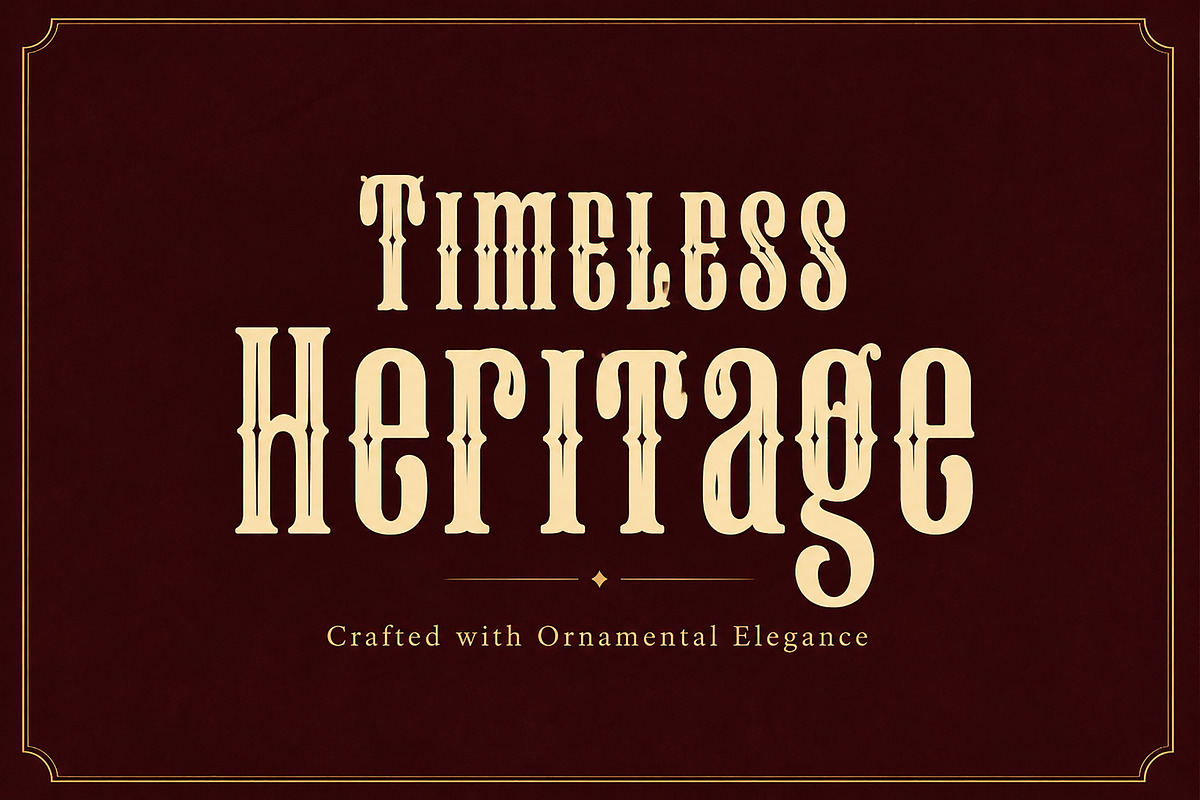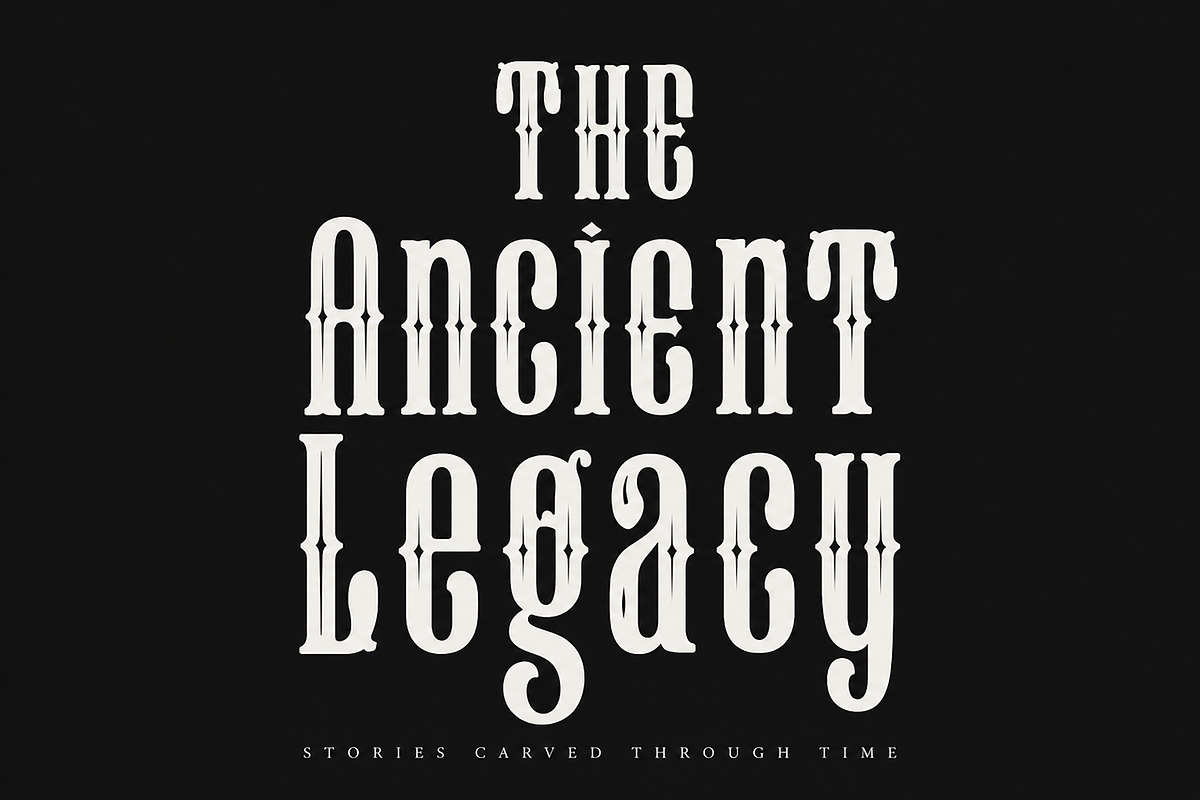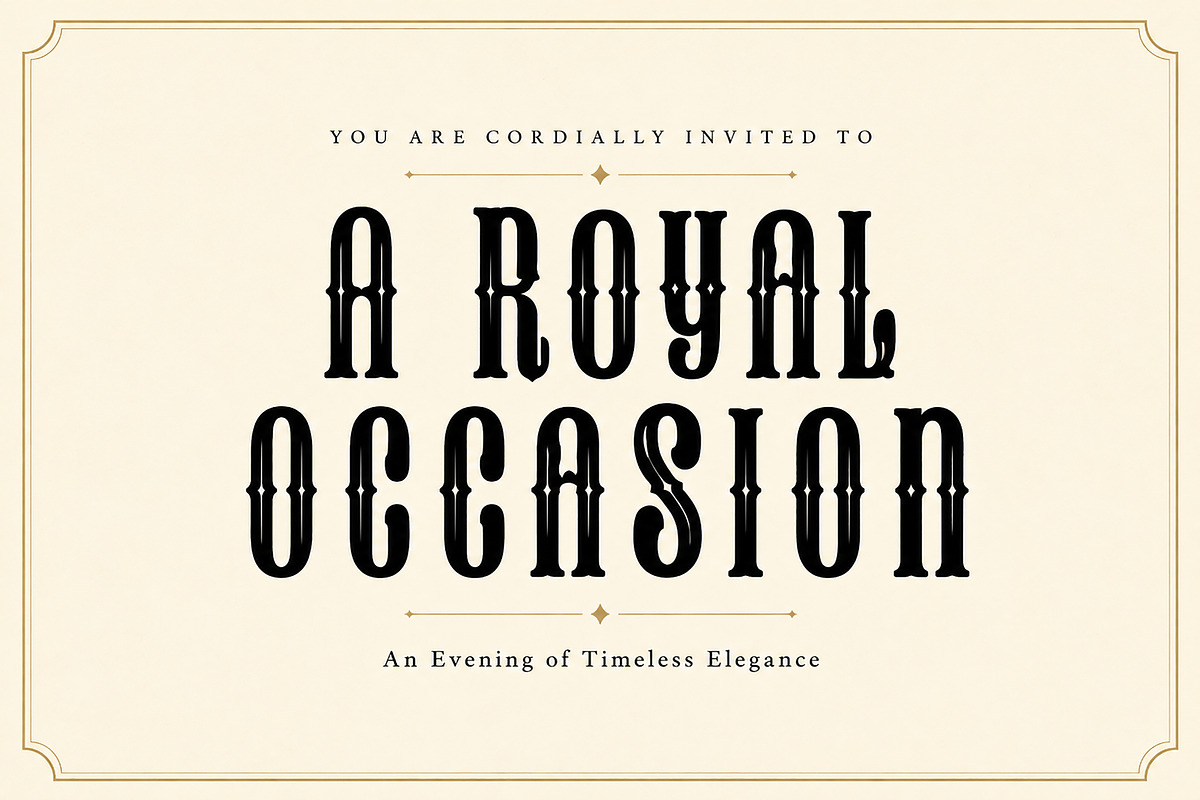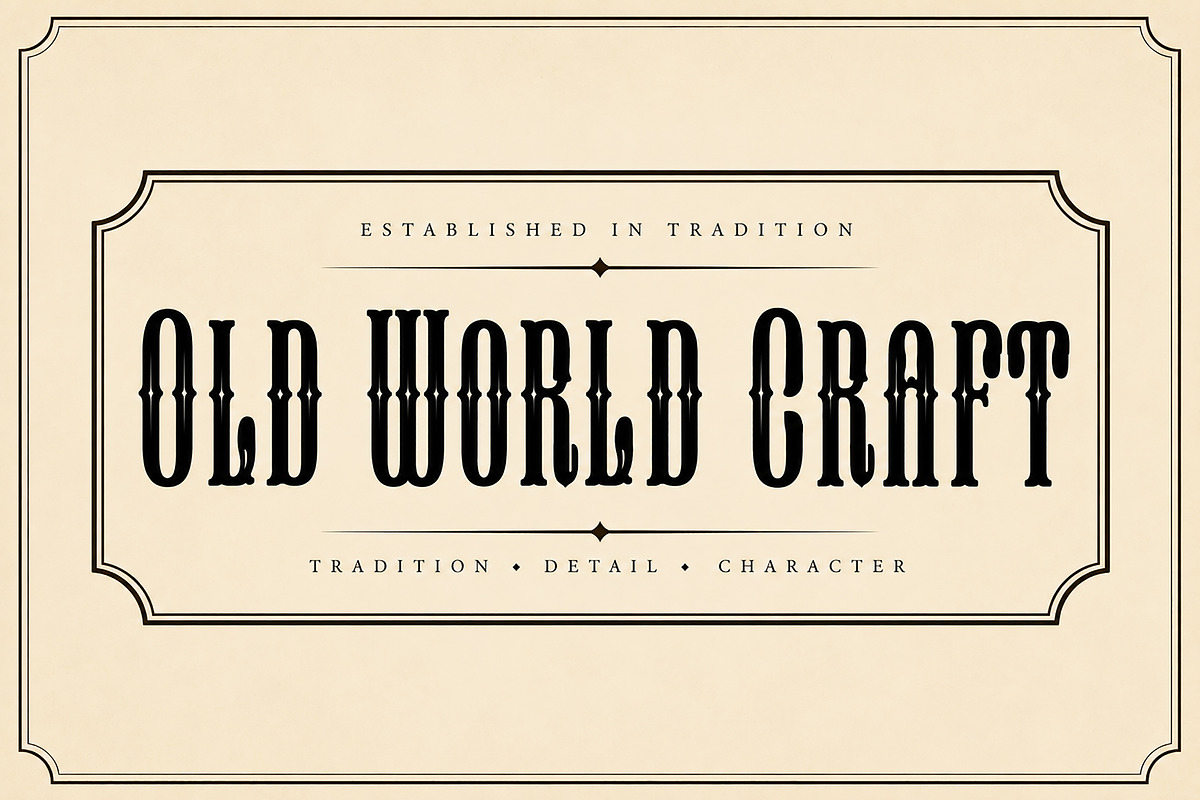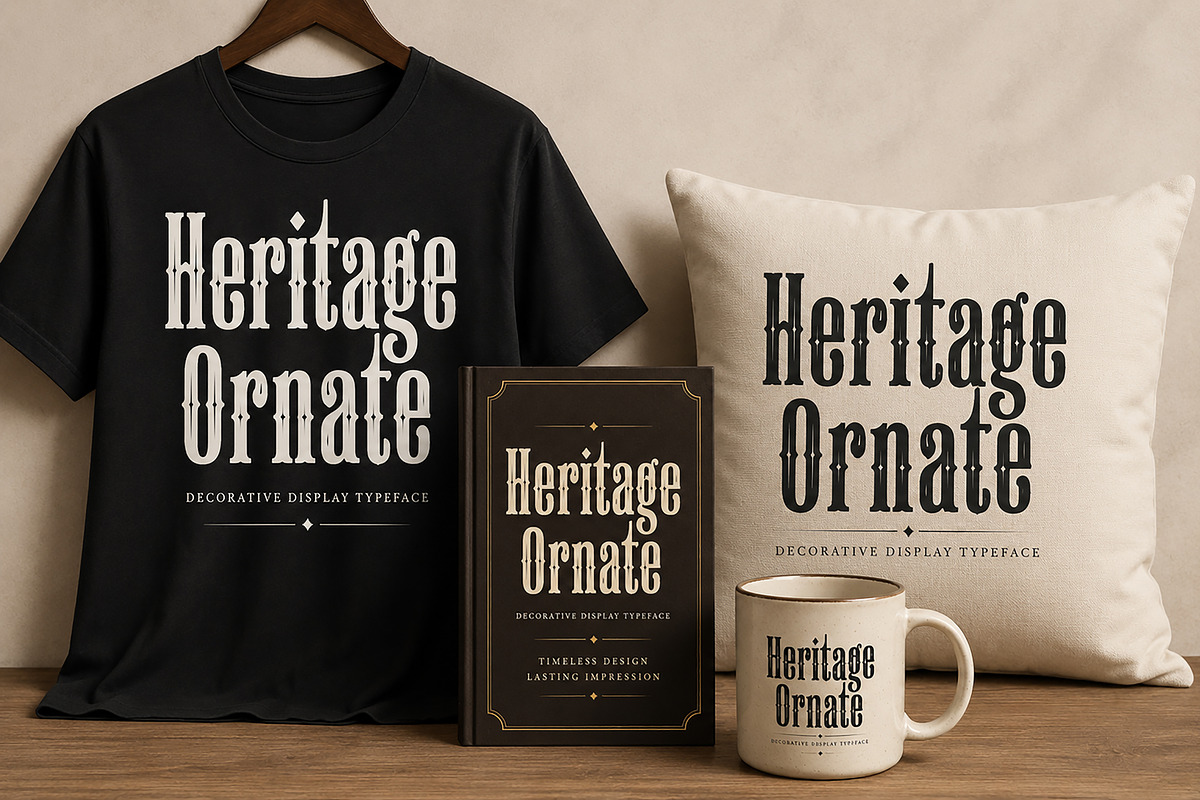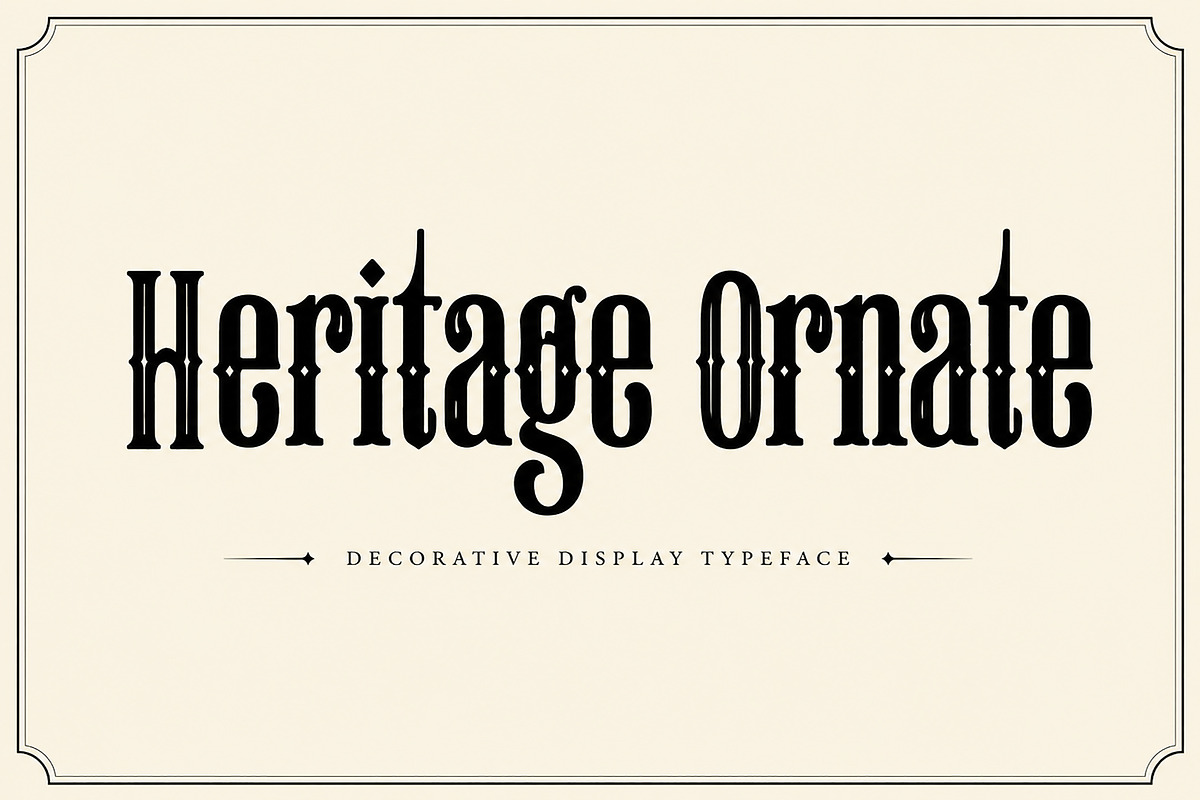
Heritage Ornate
Heritage Ornate is a decorative display typeface inspired by timeless craftsmanship, vintage elegance, and classic ornamental lettering. Featuring tall letterforms, refined decorative details, and distinctive diamond accents, this font delivers a sophisticated historical character while maintaining excellent readability for large display typography.
Designed for creators who want to add a premium vintage aesthetic, Heritage Ornate is perfect for branding, luxury packaging, editorial headlines, invitations, labels, posters, and elegant logo designs. Its unique ornamental structure creates a strong visual impact, making every headline feel bold, refined, and memorable.
Whether you're designing for heritage brands, boutique products, luxury events, or classic editorial layouts, Heritage Ornate brings timeless elegance to every project.
Logos
Branding
Luxury Packaging
Product Labels
Wedding Invitations
Editorial Headlines
Posters
Vintage Branding
Whiskey & Wine Labels
Café & Restaurant Branding
Apparel Designs
Certificates
Premium Print Designs
Decorative Display Typeface
Uppercase Letters
Lowercase Letters